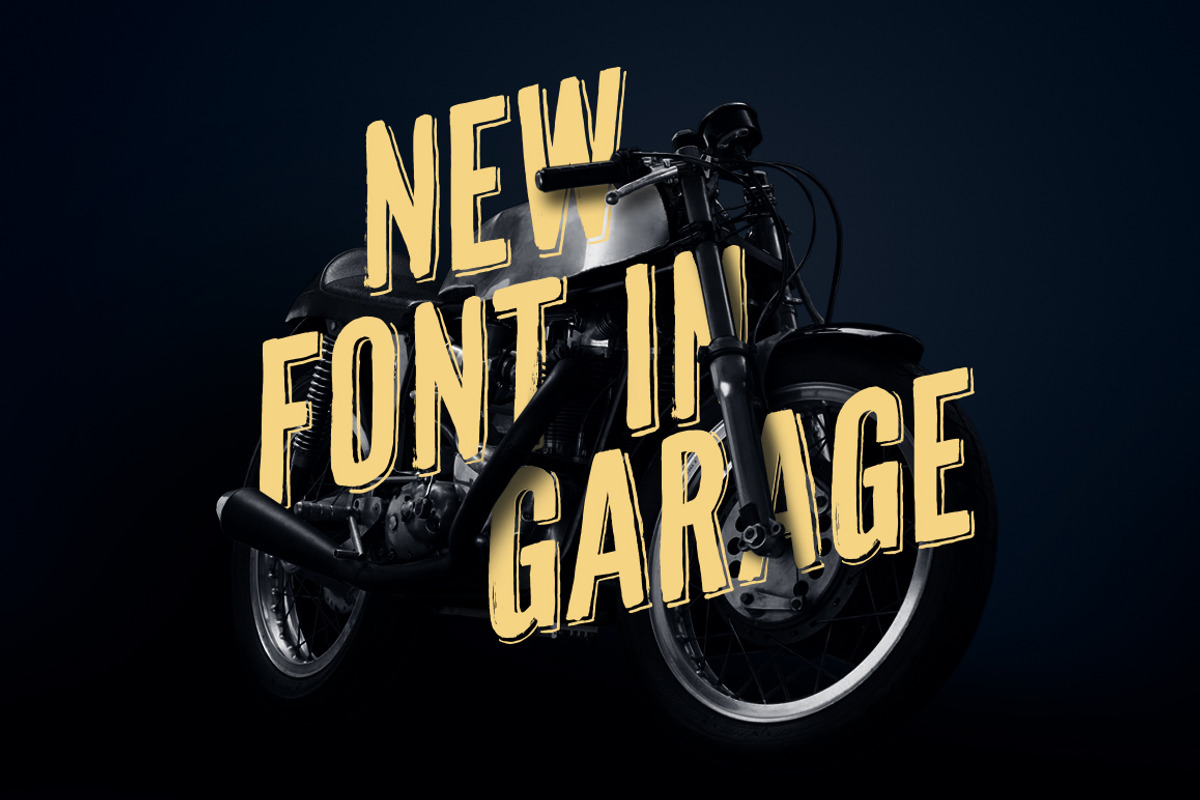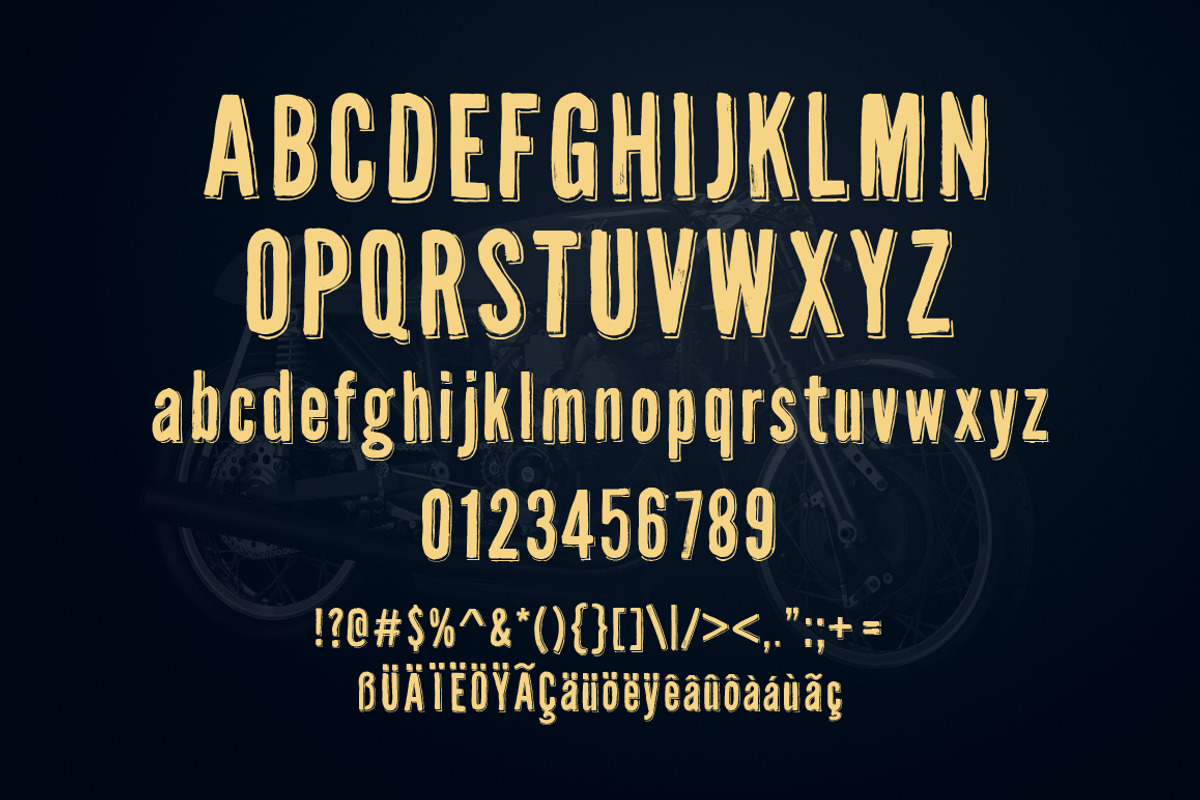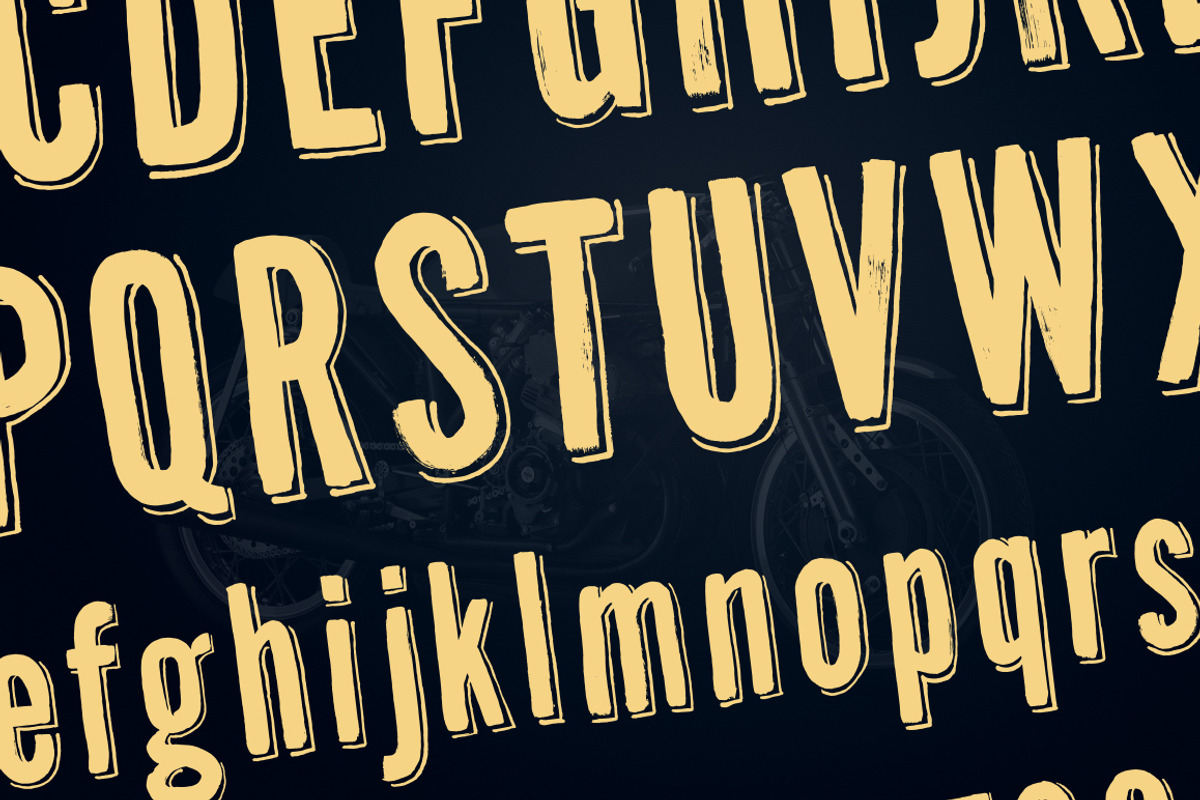
CafeRacer Typeface
CafeRacer Typeface by Liviu is a font selected for branding, posters, packaging, typography.
Why CafeRacer Typeface is worth a look
CafeRacer Typeface by Liviu fits naturally into Branding, posters, packaging, typography.